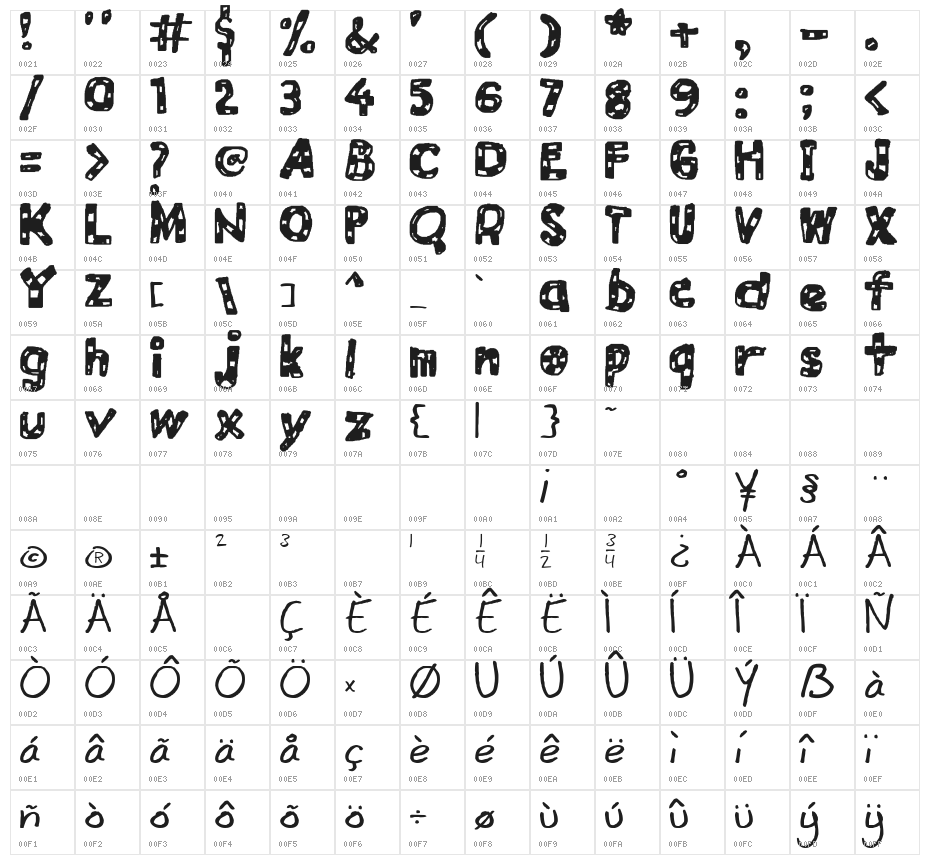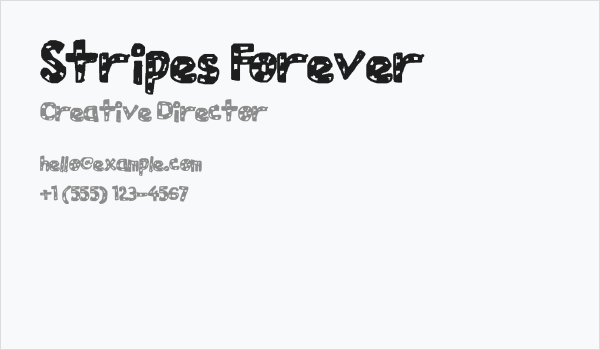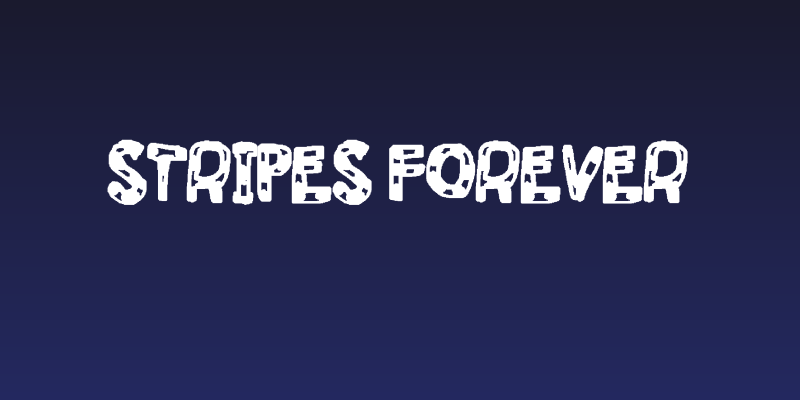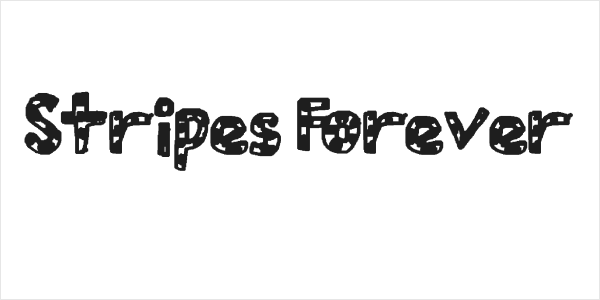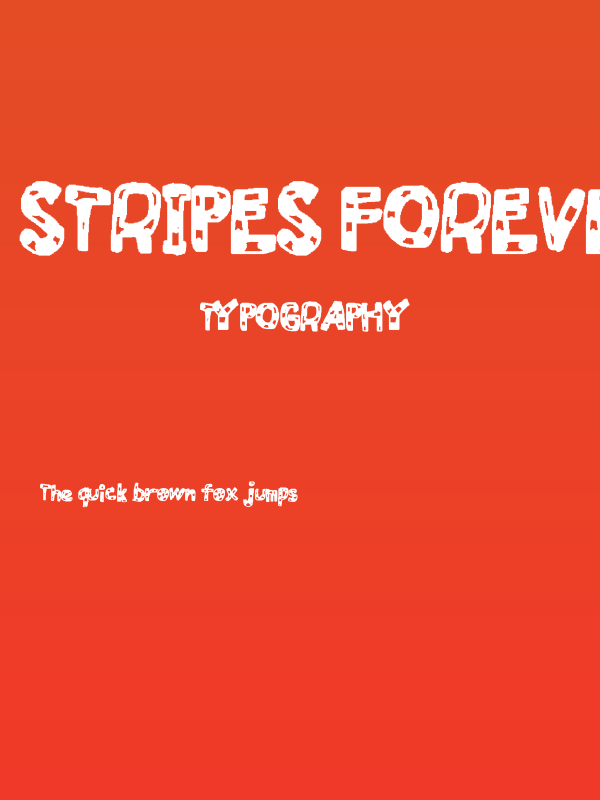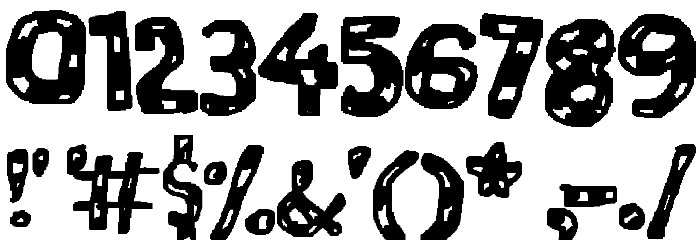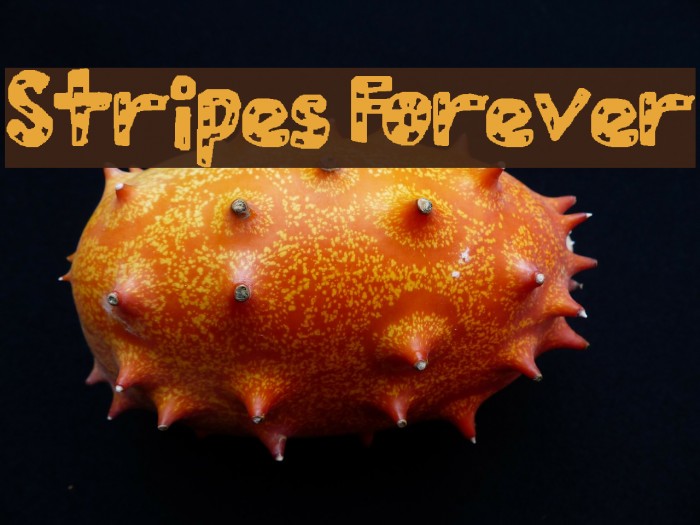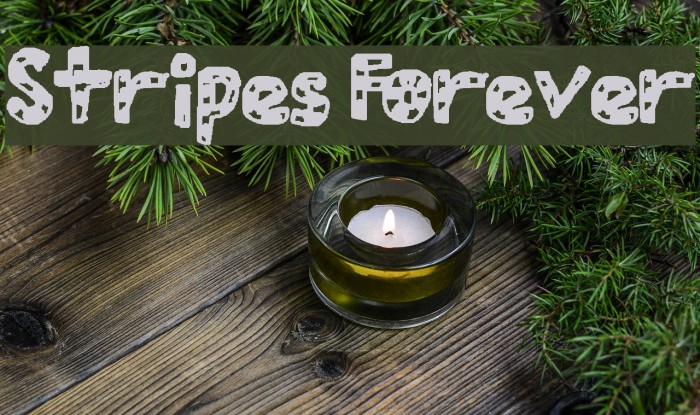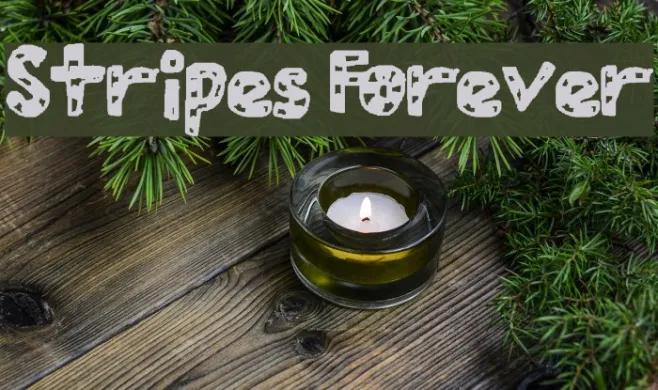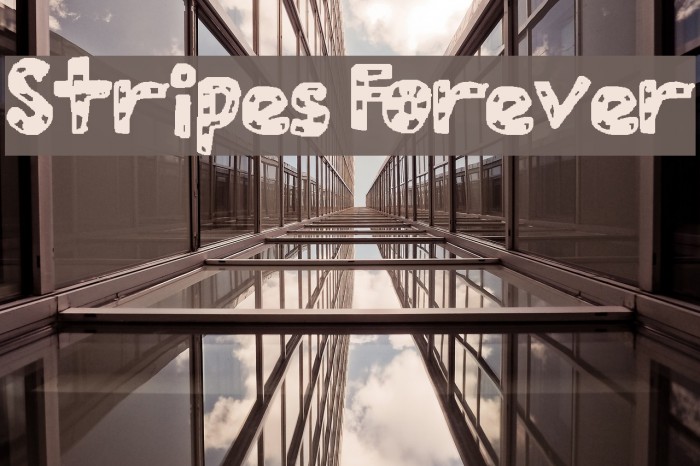
Stripes Forever Font
Stripes Forever Description
This font features a playful and bold design with a unique striped pattern within each character. The letters are uppercase and lowercase, with numbers and a variety of special characters. The style is eye-catching and decorative, making it suitable for projects that require a fun and engaging look. The strokes are thick, with a medium contrast between the filled and unfilled areas, creating a dynamic visual effect. The character spacing is normal, allowing for readability while maintaining its distinctive style.
| Proposed Projects | Ideal for children's book covers, playful posters, party invitations, and creative branding projects. |